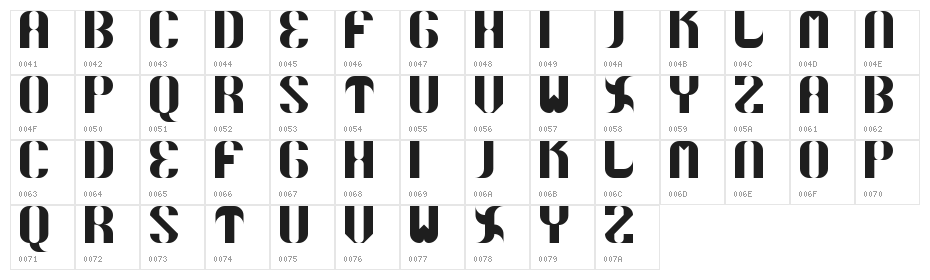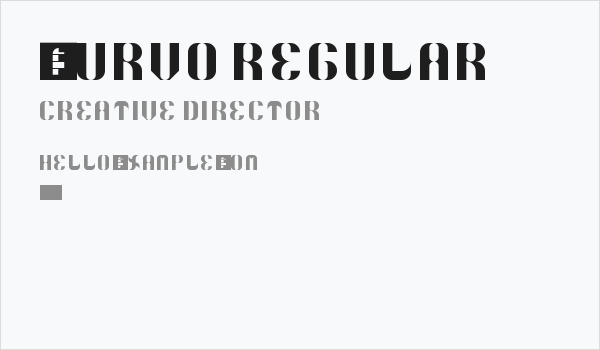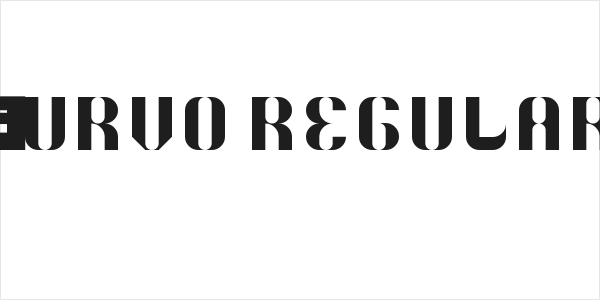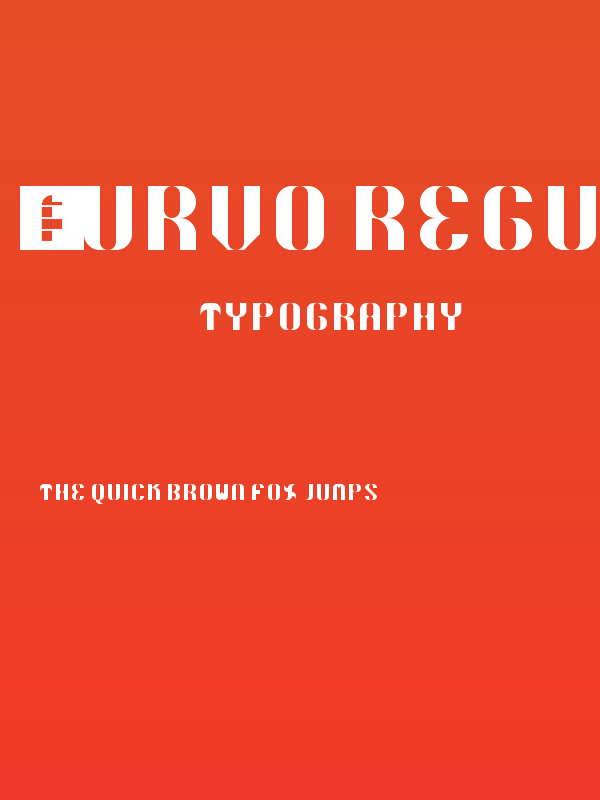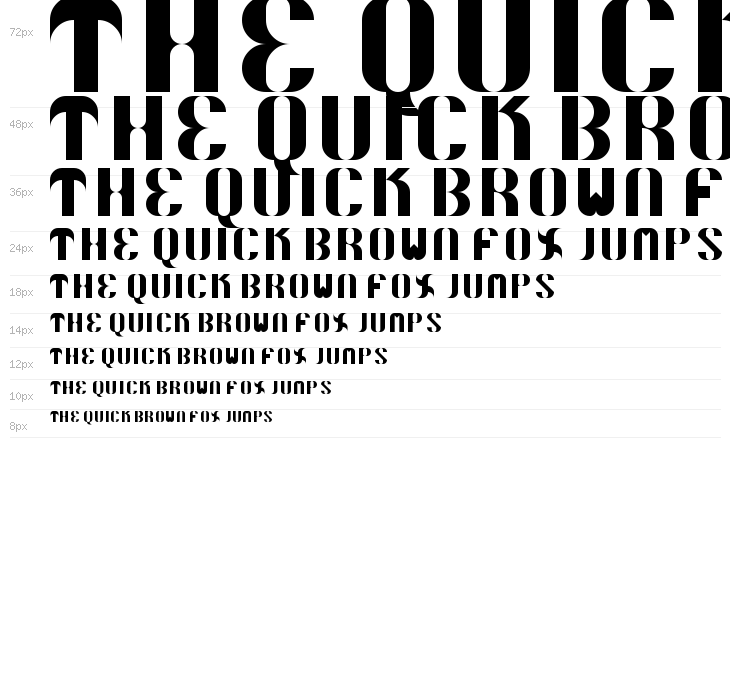
5Curvo Regular Font
5Curvo Regular Description
This font features a bold and striking design with a modern twist. The characters are crafted with a unique blend of geometric shapes and sharp angles, creating a visually captivating appearance. The uppercase letters exhibit a strong presence with their thick strokes and distinct cuts, while the lowercase letters maintain a cohesive style that complements the overall aesthetic. The numerals and special characters are designed with the same attention to detail, ensuring consistency throughout the typeface. This font's boldness and unique style make it ideal for projects that require a strong visual impact.
| Proposed Projects | Ideal for branding, poster design, and headlines that require a strong visual impact. |